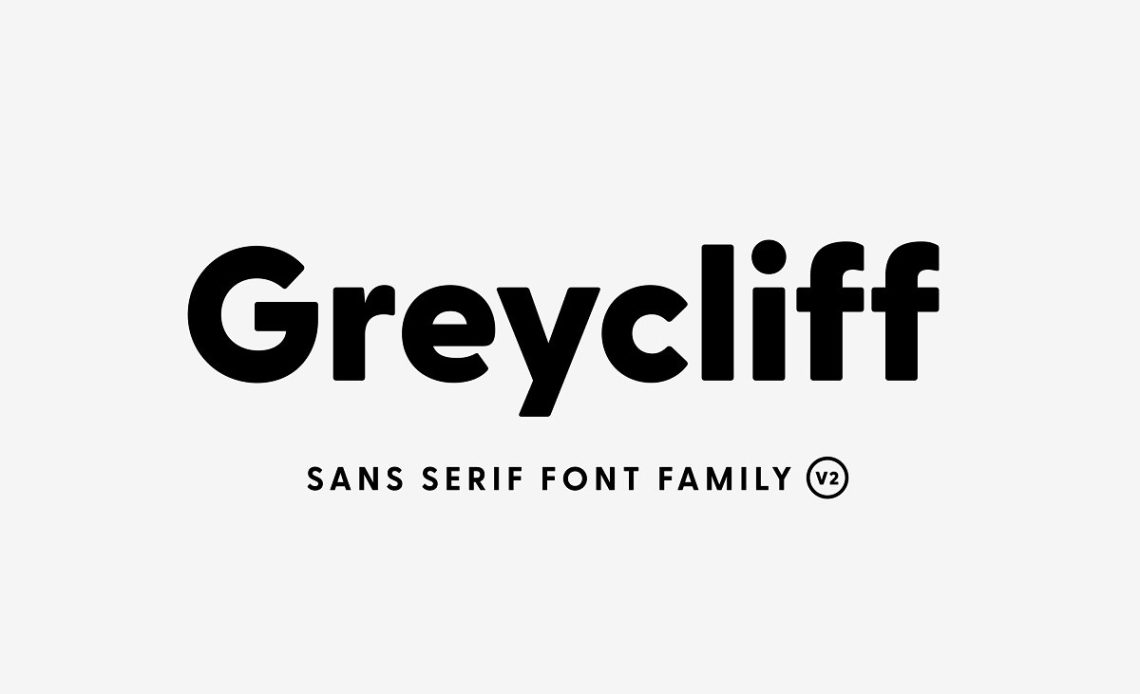
Introducing Greycliff CF, the geometric sans font family created by Connary Fagen that exudes ruggedness, heartiness, and warmth. Whether you're designing a logo, creating a website, or crafting a social media post, Greycliff CF's strong capitals and smooth, open lowercase will elevate your project to the next level.
But Greycliff CF is more than just a pretty font. Its near-monoline construction makes it durable and versatile, suitable for a wide range of applications. And with nine weights and obliques, you'll have plenty of options to choose from.
What's more, Version 2.5 of Greycliff CF has recently been released, adding support for Greek, Cyrillic, and Vietnamese, as well as new glyphs including several currency symbols. And with free updates and feature additions, you can be sure that Greycliff CF will continue to evolve and improve over time.
But don't just take our word for it. Greycliff CF has already won over countless designers and creatives around the world. Its vibrant shapes and softened edges make it the perfect choice for anyone looking to add a touch of personality to their work.